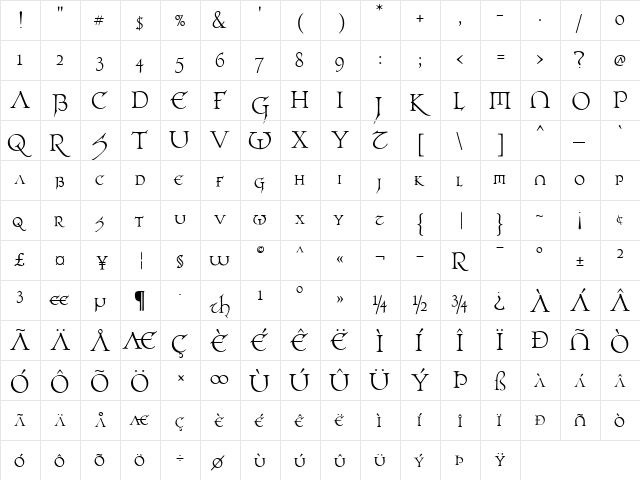
Planet Serif SC DemiBold
Design Context for Planet Serif SC Typeface
Planet Serif SC brings classic typographic sensibility to the table — its serifs and measured letterforms reflect centuries of print heritage. Its bold stroke weight gives it real presence on the page.
Pro Tip: Set Planet Serif SC with slightly loose tracking in headlines to let each letterform's detail read clearly at display sizes.